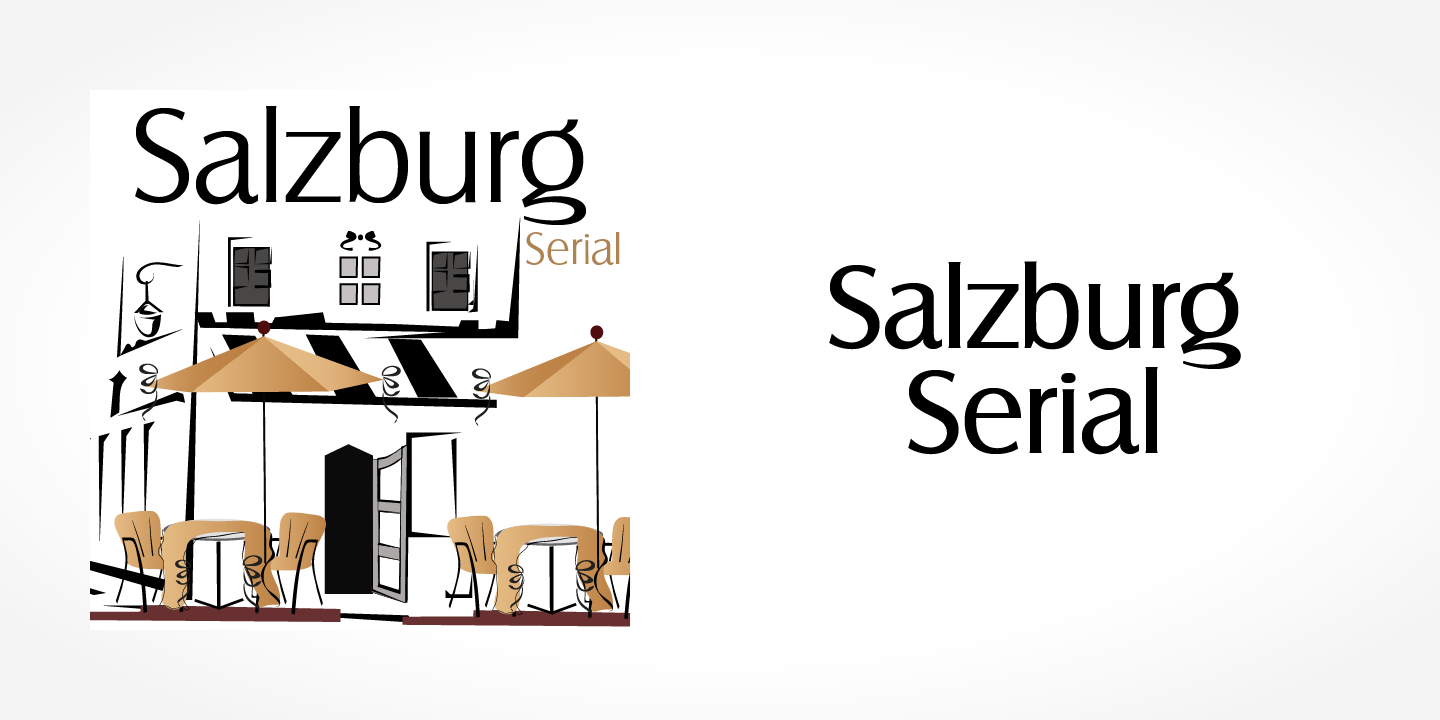
This classical typeface is perfect for classical music venues, opera houses, symphony orchestras, music conservatories, European cultural centers, classical music festivals, baroque ensembles, concert hall signage, musical theater productions, classical music education, Austrian tourism campaigns, and refined cultural institutions. The font's elegant design makes it ideal for projects that celebrate musical heritage, European sophistication, and the timeless beauty of classical compositions that have inspired generations with their artistic excellence.
Salzburg Serial Font is exciting because it embodies musical sophistication and European cultural heritage through its harmonious letterforms and classical character structure. The font's refined proportions and elegant curves create an atmosphere of artistic excellence, cultural depth, and timeless beauty, making it perfect for brands that want to convey sophistication, tradition, and the elevated experience of classical music appreciation. Its cultured personality ensures instant refinement while maintaining excellent readability across various cultural applications.
The Salzburg Serial Font family includes multiple classical variations: Light Andante, Regular Moderato, Medium Allegro, Bold Fortissimo, and Black Maestoso weights, each available in standard and italic versions. Special musical editions feature note alternates, classical ornaments, and musical symbols that enhance the font's artistic appeal, providing designers with comprehensive tools for creating authentic classical music communications.